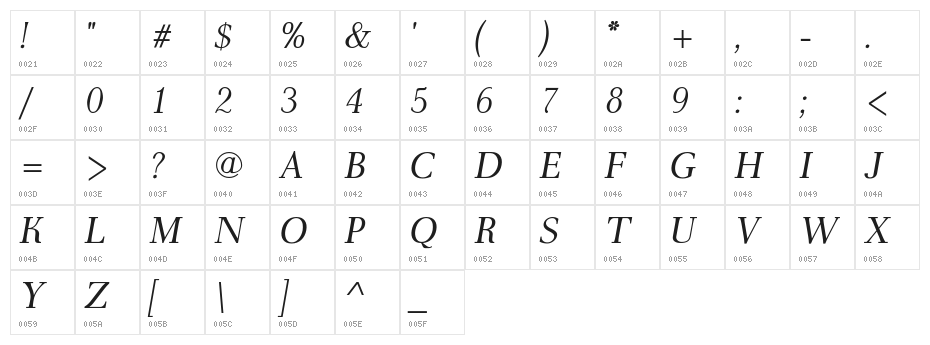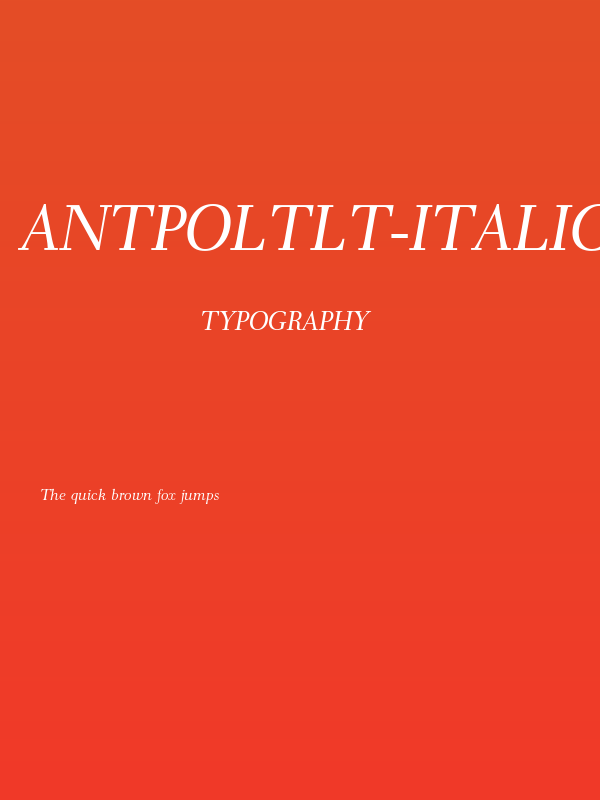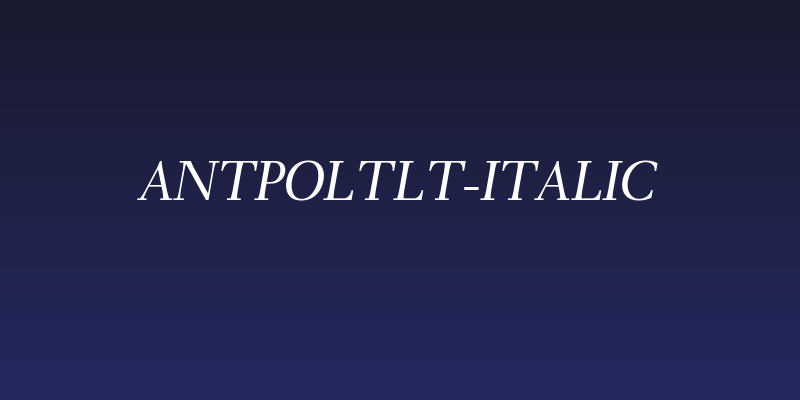
AntPoltLt-Italic Font
AntPoltLt-Italic Description
This elegant serif font features a refined italic style, characterized by its smooth curves and classic proportions. The uppercase letters exhibit a traditional form with slight flourishes, while the lowercase letters maintain a harmonious balance, enhancing readability. Numbers are designed with a consistent style, ensuring clarity and uniformity. The special characters are thoughtfully crafted to complement the overall aesthetic, making this font versatile for various applications. Its sophisticated appearance makes it suitable for formal and professional settings.